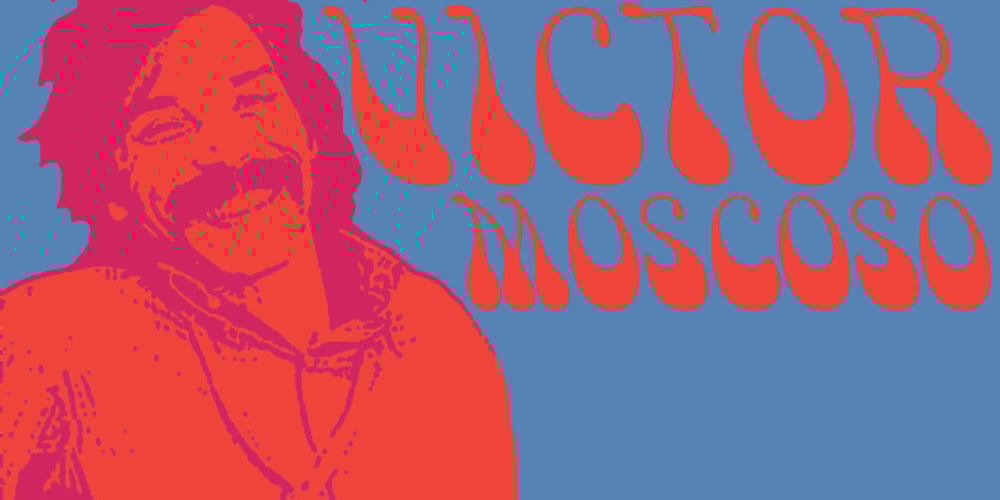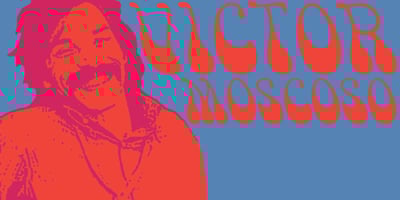
Victor Moscoso
Victor Moscoso font
Victor Moscoso Font Family was designed by published by K-Type. Victor Moscoso contains 2 styles and family package options. The Victor Moscoso font is based on the 1960s psychedelic poster lettering of the artist Victor Moscoso. The letterforms are derived from some of his most celebrated Neon Rose posters of the late sixties, in particular the archetypical Moby Grape ‘Neptune’s Notion’ of 1967.